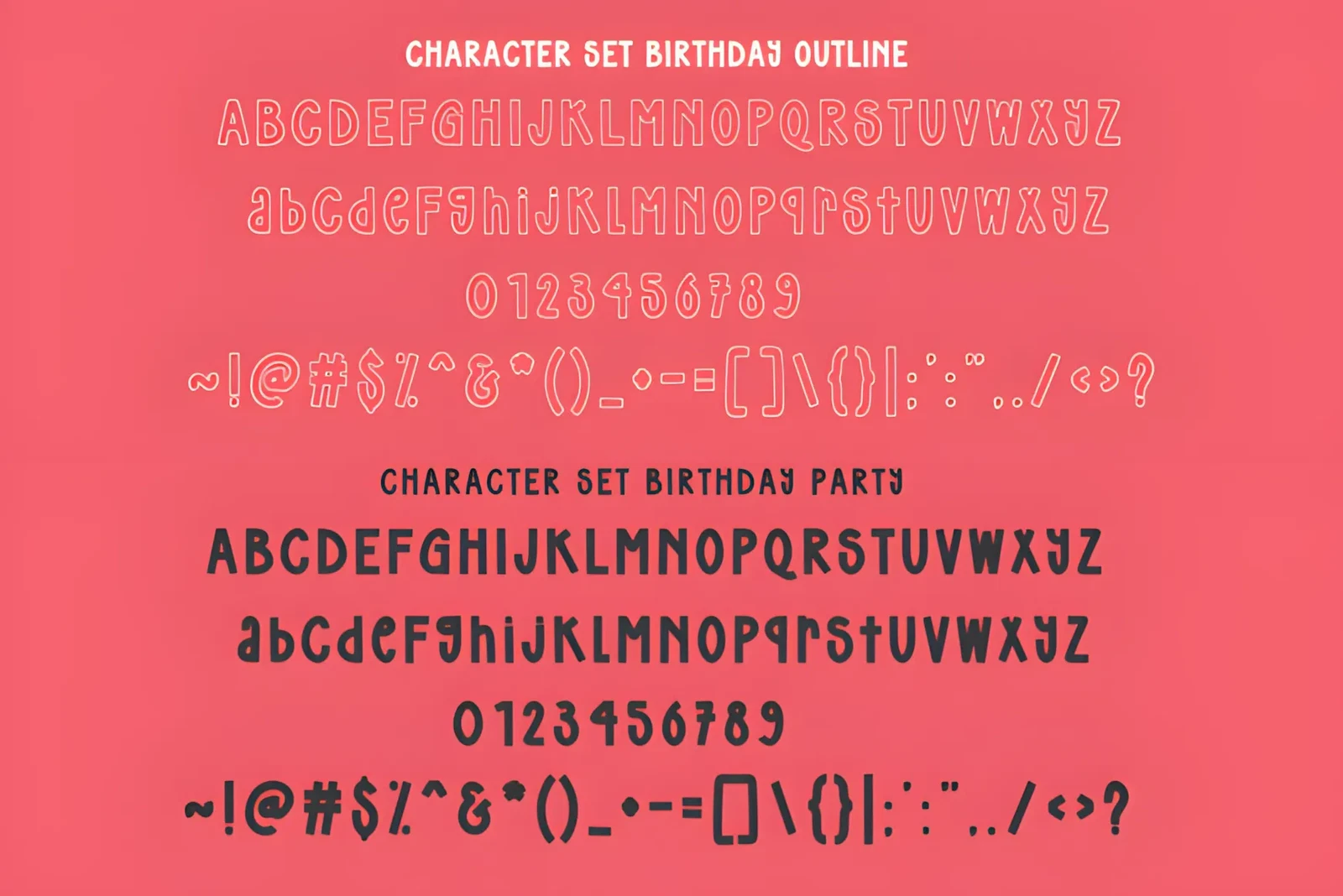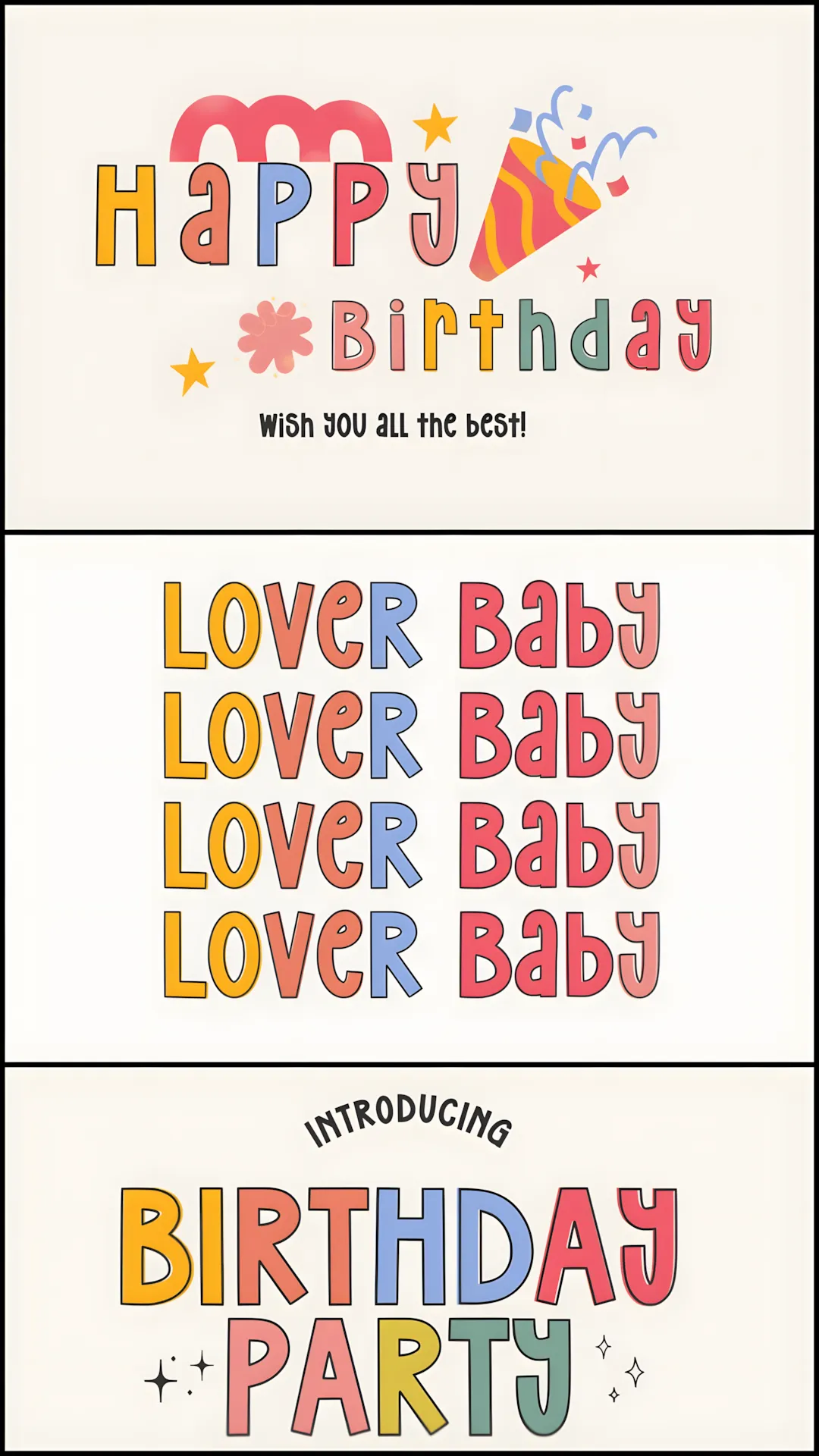
Typography sets the mood for any visual design, and when a project calls for festive energy, the right font makes all the difference. The Birthday Party 95 Font is a cheerful, decorative typeface created to bring personality, joy, and celebration to creative projects. Whether used in party invitations, event signage, posters, branding, or social media graphics, this font infuses designs with a lively and memorable aesthetic.
This playful decorative font is ideal for projects centered around birthdays, celebrations, family gatherings, holiday parties, and any occasion that benefits from a bold, joyful look.
What Is Birthday Party 95 Font?
Birthday Party 95 Font is a decorative display typeface designed to capture the upbeat spirit of festivities and fun. It features expressive, festive letterforms that feel handcrafted and whimsical, making it perfect for headlines, logos, event titles, and short text elements where visual character is key.
Unlike minimal or neutral fonts, Birthday Party 95 Font embraces a vibrant and celebratory feel. Its unique design makes it stand out in creative applications where fun and personality are essential components of the visual message.
Design Style and Visual Characteristics
The visual style of Birthday Party 95 Font is bold, playful, and dynamic. Its letterforms feature rounded curves, decorative elements, and lively shapes that evoke excitement and joy. This makes the font particularly well suited for creative design projects that need to communicate a sense of happiness or festivity.
This decorative font shines in colorful layouts and pairs well with graphic elements like confetti, ribbons, balloons, and stars. When used as a headline or main title, Birthday Party 95 Font creates instant visual impact and sets the tone for the rest of the design.
Best Uses for Birthday Party 95 Font
Party Invitations & Celebration Graphics
Birthday Party 95 Font brings unmatched personality to party invitations and celebration graphics. Whether designing birthday cards, event flyers, or digital invitations, this font adds a festive touch that enhances the overall mood and visual appeal.
It works especially well for invitations to kids’ parties, milestone birthdays, anniversaries, and holiday celebrations.
Event Posters and Flyers
In promotional design, typography must capture attention at a glance. Birthday Party 95 Font excels in posters, flyers, banners, and event signage, providing bold, decorative lettering that stands out from a distance.
This makes it ideal for community events, celebrations, fundraisers, and themed parties.
Social Media Graphics and Digital Content
In the digital world, eye-catching typography is essential to engage audiences on platforms like Instagram, Facebook, Pinterest, and TikTok. Birthday Party 95 Font works beautifully in social media posts, event announcements, digital ads, and web banners. Its lively shapes help content feel more inviting and shareable.
Branding and Packaging
Birthday Party 95 Font can also play a role in branding and packaging design. It is especially effective for product labels, gift packaging, event merchandise, and branded party supplies. Its decorative style gives products a fun, distinctive look that resonates with customers and event attendees.
Advantages of Using Birthday Party 95 Font
- Playful and festive aesthetic that enhances celebratory designs
- Decorative and expressive letterforms with strong visual impact
- Perfect for invitations, posters, and event branding
- Works across digital and print media
- Ideal for family parties, birthdays, and festive promotions
Birthday Party 95 Font strikes a balance between joyful personality and practical usability, making it a go-to choice for designers working on festive and promotional projects.
Birthday Party 95 Font is a fun, decorative typeface designed to bring celebration and character to creative projects. Its festive letterforms and joyful style make it a natural choice for invitations, party graphics, posters, branding, and social media content. Whether used for print or digital design, Birthday Party 95 Font adds personality and cheer to every project.
For designers seeking a lively decorative font that captures the essence of celebration, Birthday Party 95 Font delivers both style and versatility.